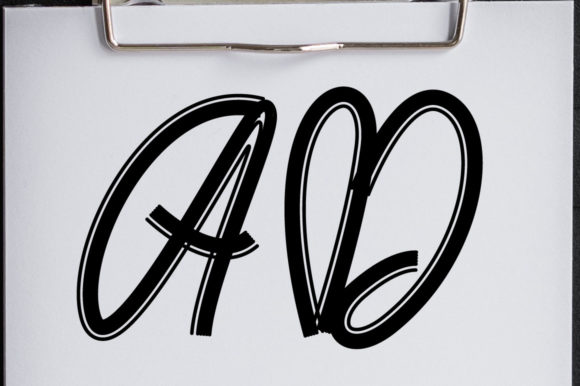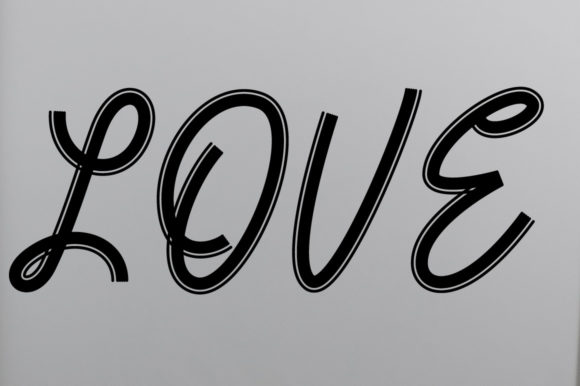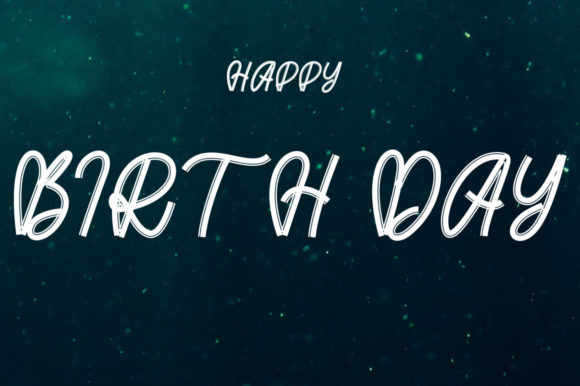
New Year Font
About New Year Font
New Year is a clean and neat handwritten brush font. This soft font will look great on any design idea. It is perfect for t-shirts, decorations, room interiors, product labels, award certificates, store names, company names, presentations, and so much more.